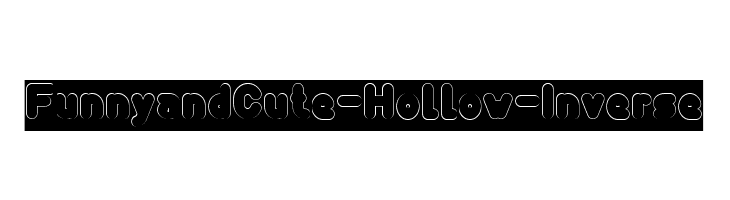
A bold, rounded font with a playful and whimsical style.
A playful, bold font with rounded, bubbly characters.
A playful, bold, and slightly italicized font with rounded, bubbly characters.
A playful, hollow, rounded font with a bubbly and whimsical style.
A playful, hollow, and rounded font with a whimsical style.
A playful, bold, and rounded font with a whimsical and fun appearance.
A playful, rounded font with a bold and friendly appearance.